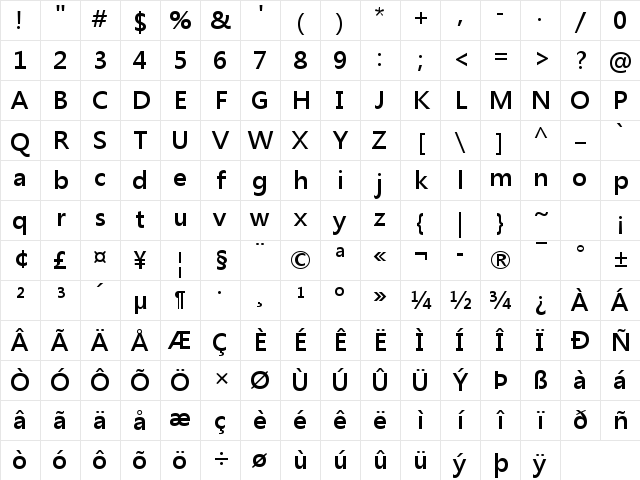
Microsoft JhengHei is a composed and adaptable typeface that performs quietly and consistently across a wide range of design contexts. Its bold stroke weight gives it real presence on the page.